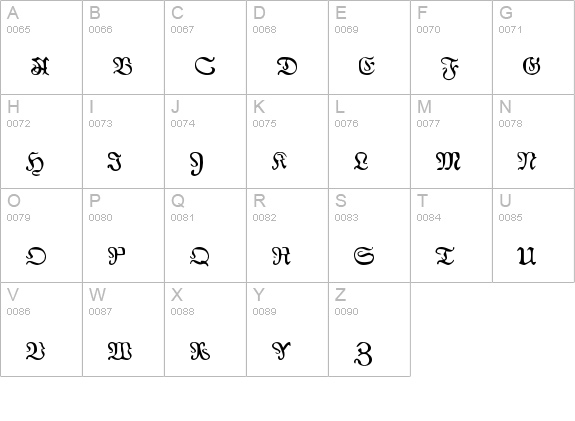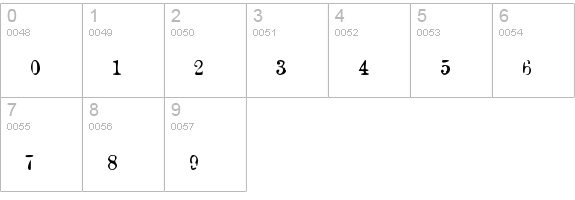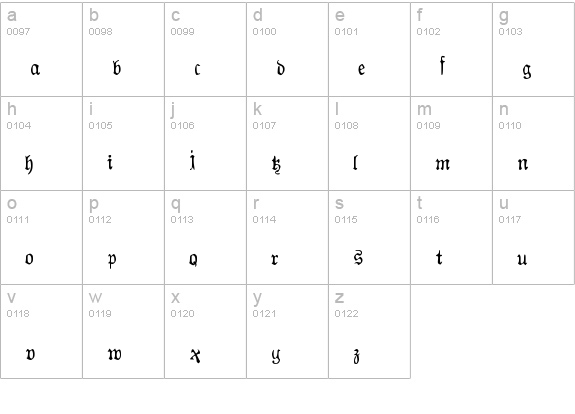
AuldMagick Font Details
AuldMagick font is a beautifully crafted typeface that exudes a sense of timeless elegance and enchantment. Its intricate details and graceful curves make it perfect for adding a touch of magic to any design project. Designed with meticulous attention to detail, AuldMagick font captures the essence of classic calligraphy with a modern twist. Its flowing strokes and delicate serifs create a harmonious balance between tradition and innovation. With its versatile nature, AuldMagick font is suitable for a wide range of applications. Whether you're designing wedding invitations, creating branding materials, or crafting a mystical book cover, this font will add a touch of sophistication and charm. But what truly sets AuldMagick font apart is that it is freely available to download at FontsMarket.com. This means that you can bring the enchanting beauty of this font to your projects without breaking the bank. So why wait? Unlock the power of AuldMagick font and let your creativity soar. Whether you're an experienced designer or just starting out, this font will inspire and captivate your audience with its timeless allure. Download it today and embark on a magical journey of design possibilities.